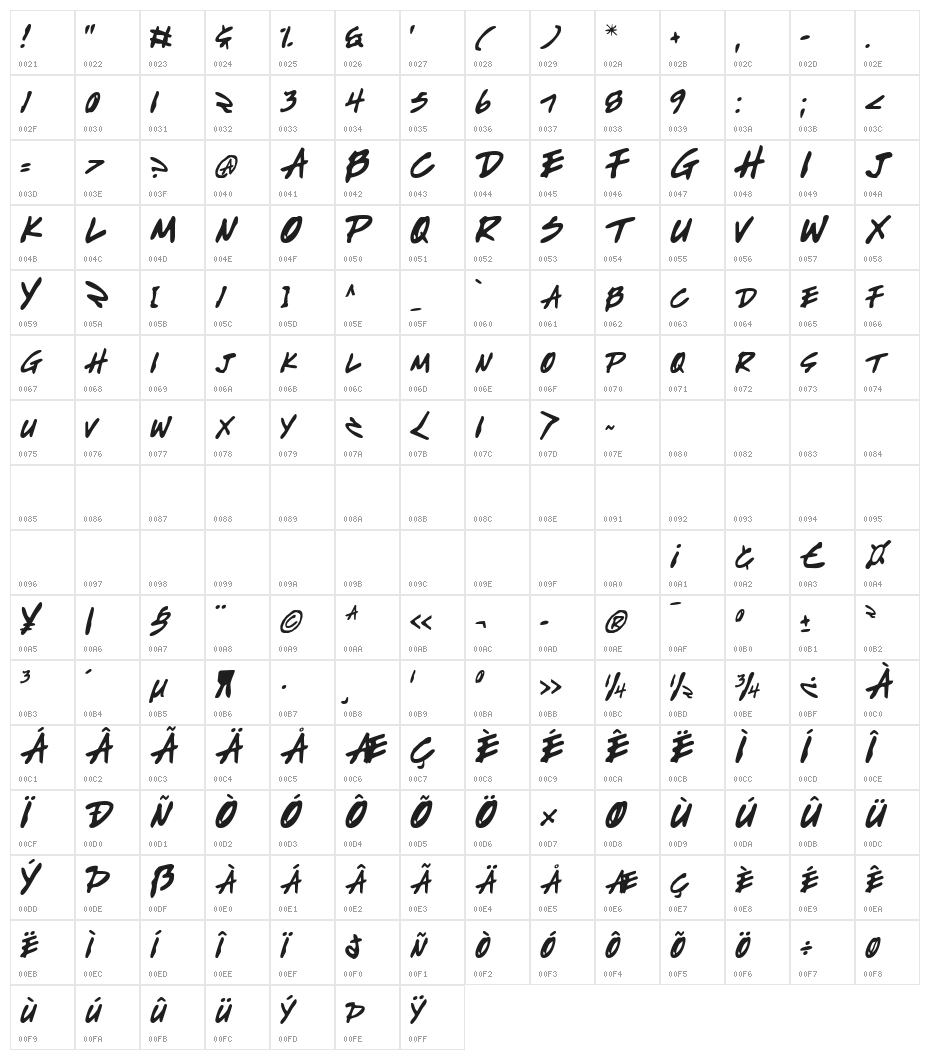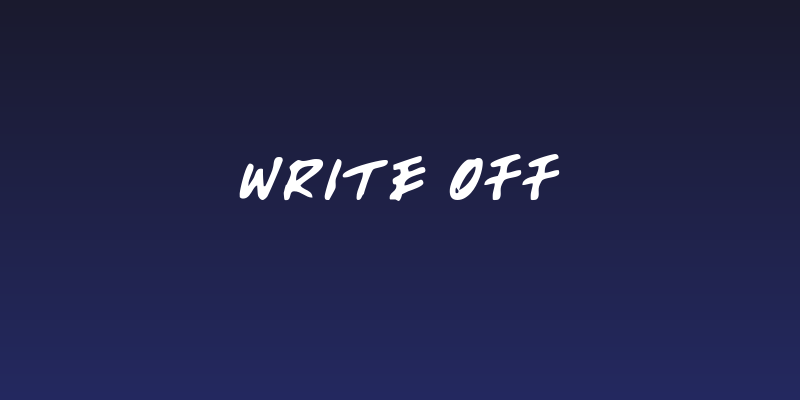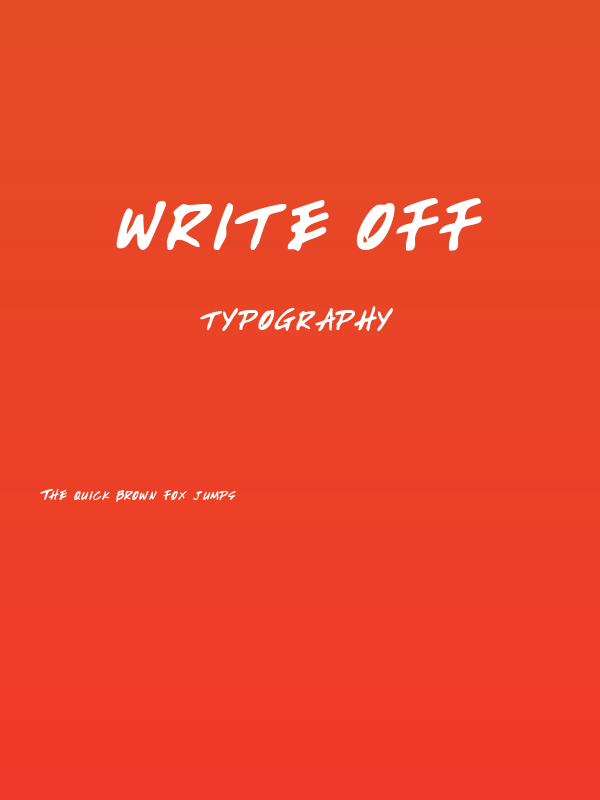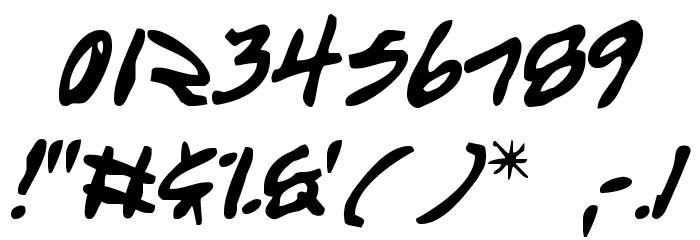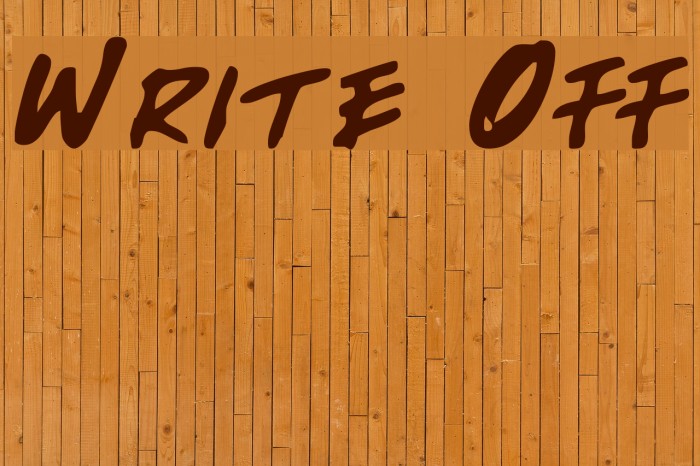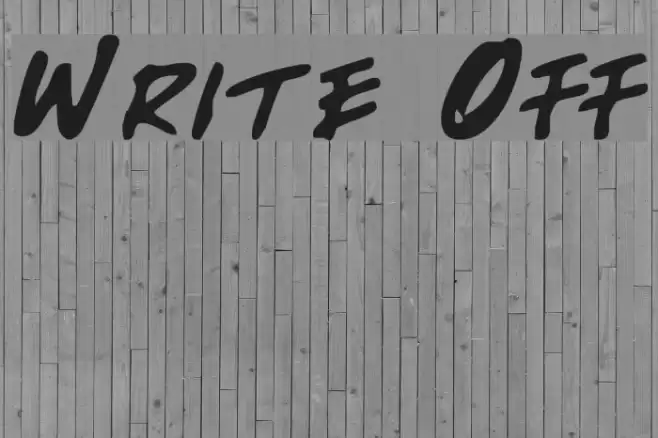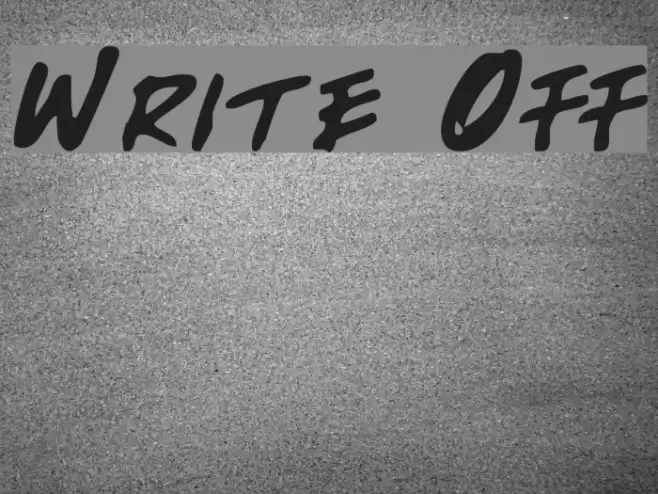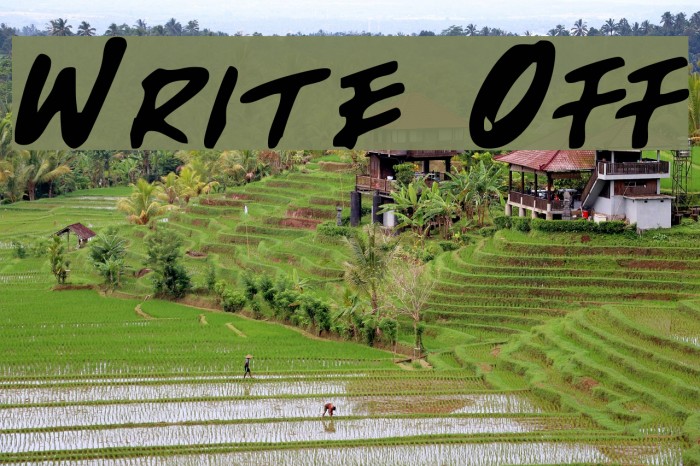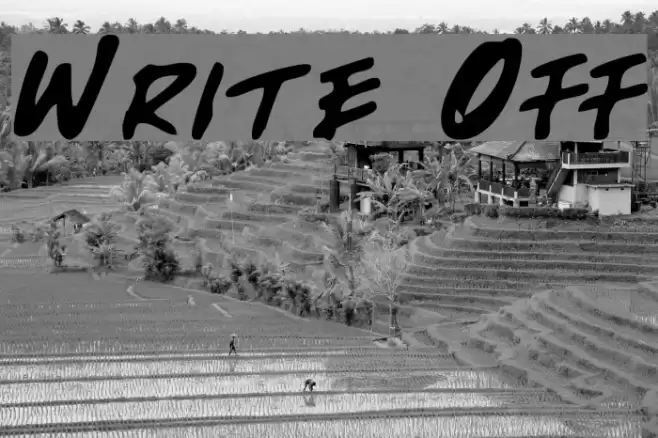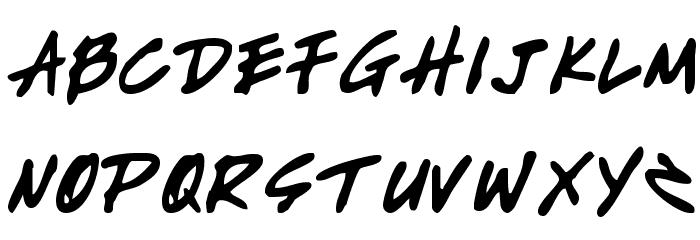
Write Off Font
Write Off Description
This font features a bold, handwritten style with a dynamic and energetic appearance. The characters are slightly slanted, giving a sense of movement and fluidity. The strokes are thick and consistent, providing a strong visual impact. The uppercase and lowercase letters maintain a cohesive look, with rounded edges and a casual flair. Numbers and special characters are designed to match the overall style, ensuring uniformity across all elements. This font is ideal for projects that require a personal touch or a creative, informal vibe.
| Overall Style | Casual, Energetic |
| Use Case | Logos, Headlines, Posters |
| Proposed Projects | Ideal for branding, posters, social media graphics, and creative projects that require a personal touch. |